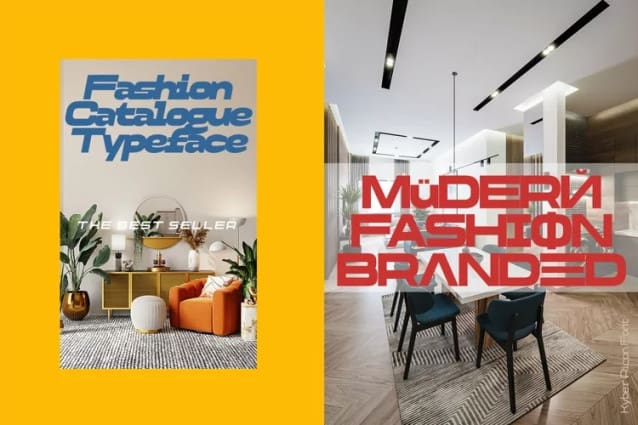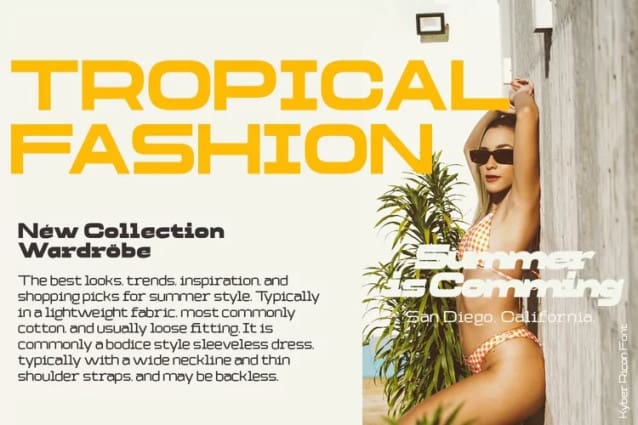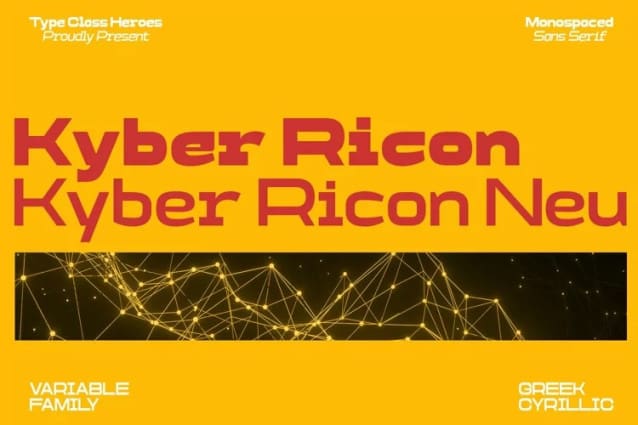
Kyber Ricon Font
Kyber Ricon Font – KyberRicon and Kyber Ricon Neu is a Monospaced sans serif family. Design with various width and weight that you can explore and combine creating rhythm and texture for comfortable reading. This font supports more than 400 Latin-based languages and has extensive Cyrillic and Greek support for languages like Russian, Bulgarian, Ukrainian, and many more.In variable version, it allows multiple options when designing, adapting to different composition solutions.